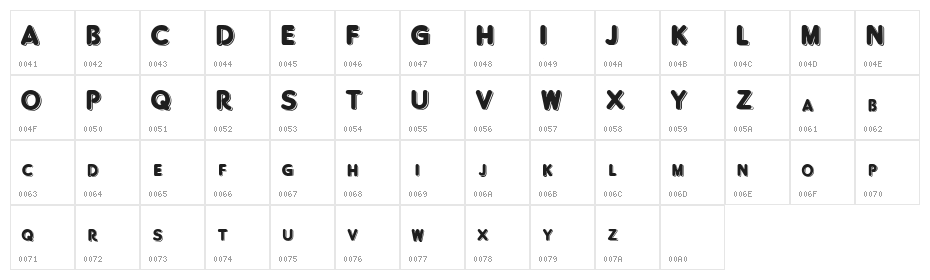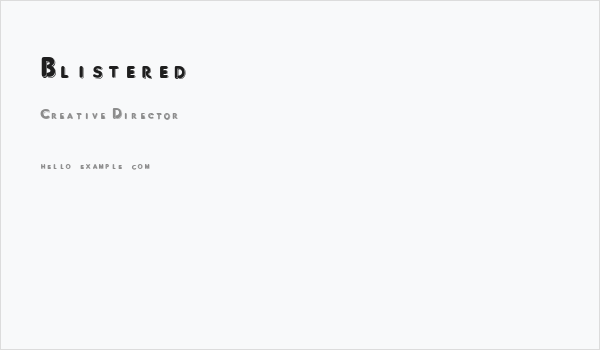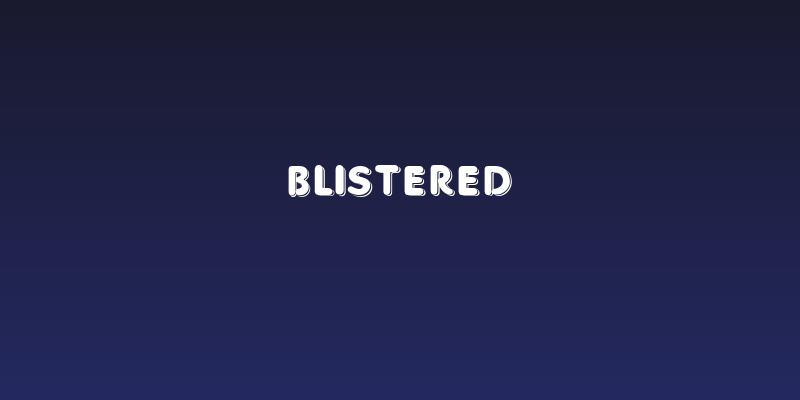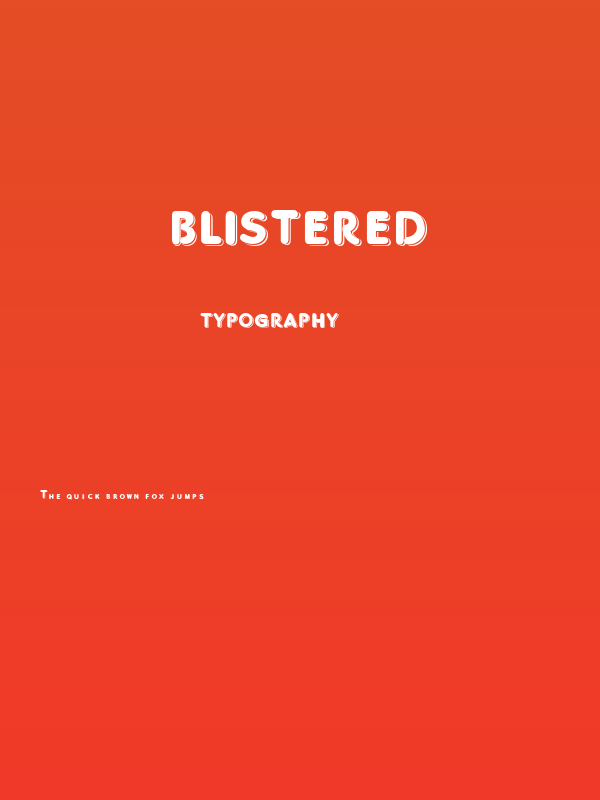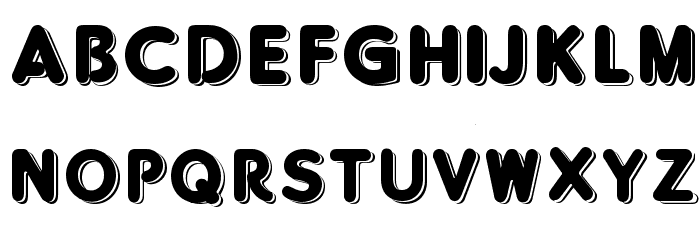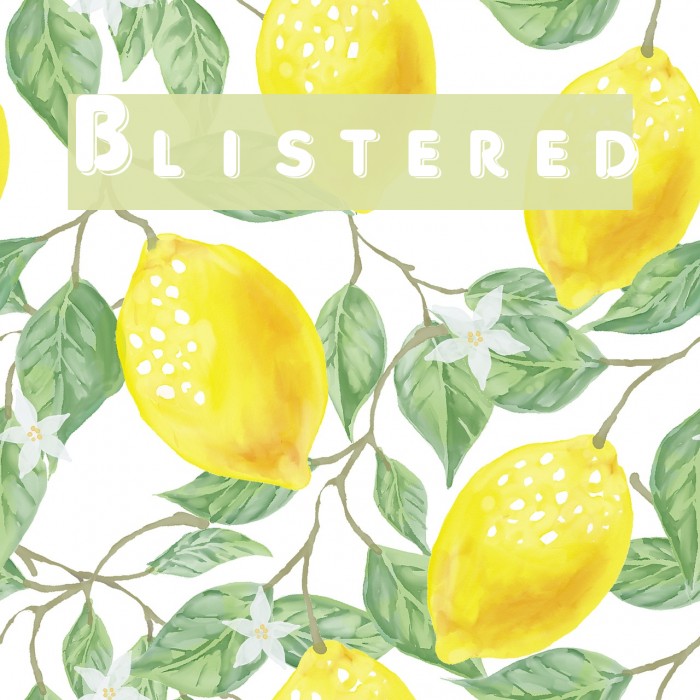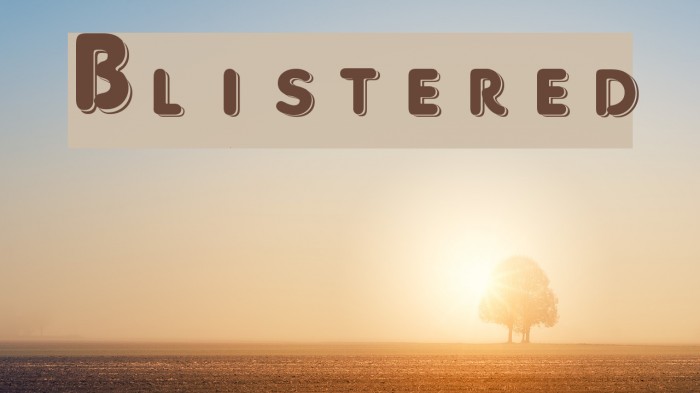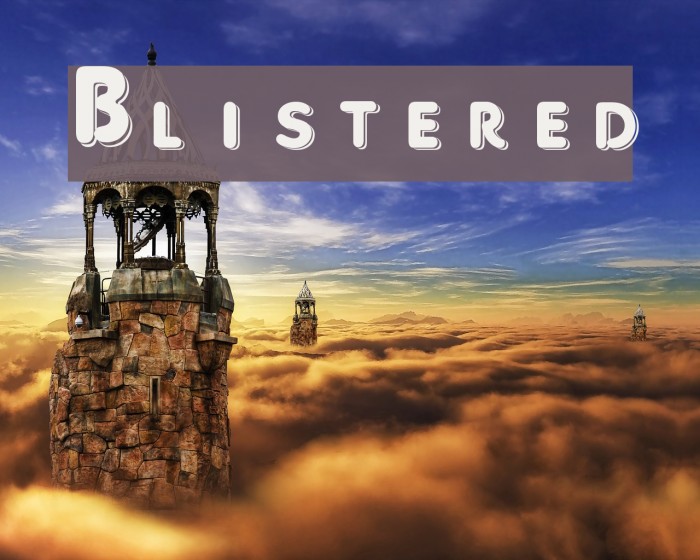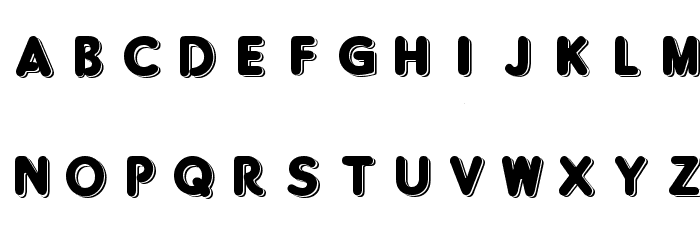
Blistered Font
Blistered Description
This font features bold, rounded characters with a distinct 3D effect created by a shadow that gives each letter a sense of depth. The uppercase and lowercase letters maintain a consistent style, with smooth curves and a playful, cartoonish appearance. The numbers and special characters follow the same design principles, ensuring uniformity across all glyphs. The font's unique style makes it stand out, ideal for projects that require a fun and engaging visual element.
| Overall Style | Playful, Cartoonish |
| Proposed Projects | Ideal for children's books, comic strips, playful branding, and eye-catching headlines. |